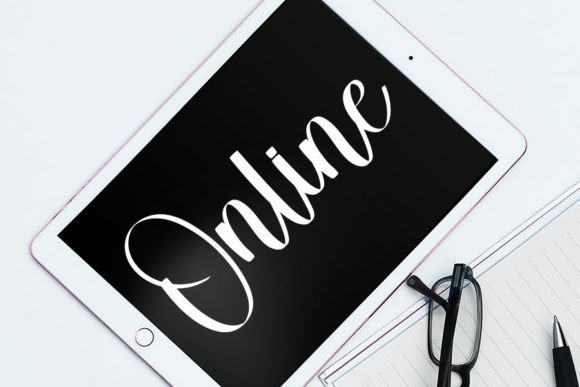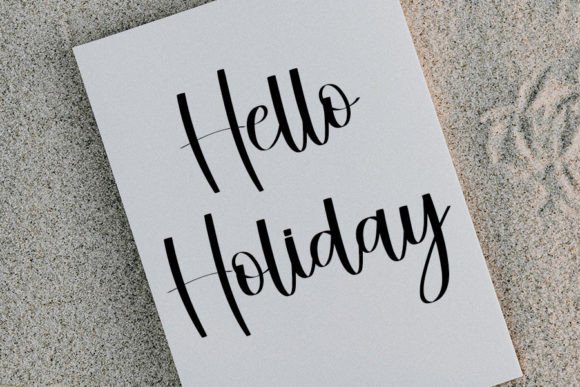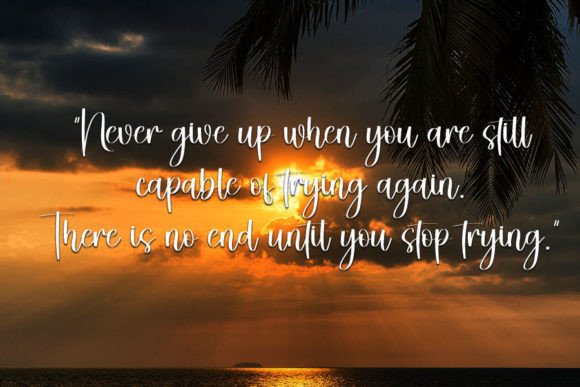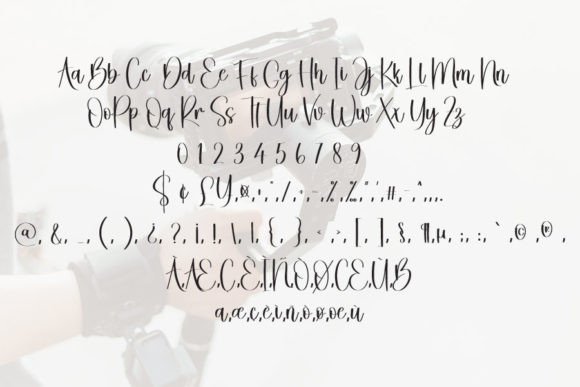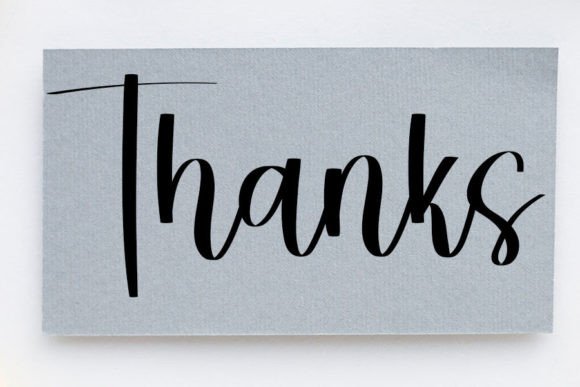
Cinematic Font: Elevate Your Designs with a Simple yet Powerful Handwritten Style
In the realm of typography, fonts play a pivotal role in conveying messages, evoking emotions, and enhancing the visual appeal of designs. Among the myriad of font styles available, handwritten fonts have gained significant popularity for their personal touch and unique charm. One such font that has been making waves in the design community is the Cinematic Font. Described as a simple handwritten font, Cinematic offers a versatile and natural feel that can elevate a wide range of projects, from greeting cards and personal notes to headlines and professional branding.
The Essence of Cinematic Font
Cinematic is characterized by its effortless, handwritten aesthetic. It boasts a clean and uncomplicated design that lends itself well to various applications. The beauty of Cinematic lies in its simplicity and the warmth it brings to any design. Unlike more ornate or decorative fonts, Cinematic’s straightforward yet elegant style ensures that the message or content takes center stage, enhanced by a subtle personal touch.
One of the key advantages of the Cinematic Font is its versatility. Designers and crafters can use it across a broad spectrum of projects. Here are a few examples:
- Greeting Cards and Invitations: Add a personal and heartfelt touch to your greeting cards, invitations, and thank you notes.
- Headlines and Titles: Use Cinematic for headlines, titles, and subtitles in your blog posts, articles, and social media content to grab attention.
- Branding and Logos: Incorporate Cinematic into your brand’s typography for a friendly and approachable image.
- Digital and Print Media: Whether you’re working on a digital platform or a print project, Cinematic’s adaptability shines through.
Why Choose Cinematic Font?
There are several reasons why designers and crafters are gravitating towards the Cinematic Font:
- Easy to Read: Despite its handwritten nature, Cinematic is clear and easy to read, making it suitable for both digital and print media.
- Natural Feel: It adds a natural and organic feel to your designs, which can be particularly appealing in an era dominated by digital content.
- Customizable: Being a simple font, Cinematic can be easily customized to fit your project’s tone and style.
- Timeless Appeal: The simplicity of Cinematic ensures it won’t go out of style anytime soon, providing a timeless appeal to your designs.
How to Use Cinematic Font Effectively
To make the most out of the Cinematic Font, consider the following tips:
- Pair with Other Fonts: Experiment with pairing Cinematic with other fonts to create visual interest and hierarchy in your designs.
- Adjust Size and Color: Play around with the size and color of Cinematic to match the tone and theme of your project.
- Use for Emphasis: Utilize Cinematic for key messages or calls to action to draw attention and add a personal touch.
Cinematic Font offers a unique blend of simplicity, versatility, and charm, making it an excellent choice for designers and crafters looking to add a personal touch to their projects. Whether you’re creating greeting cards, crafting headlines, or developing a brand identity, Cinematic can help you achieve a natural and engaging look. Embrace the power of handwritten typography with Cinematic Font and elevate your designs to new heights.